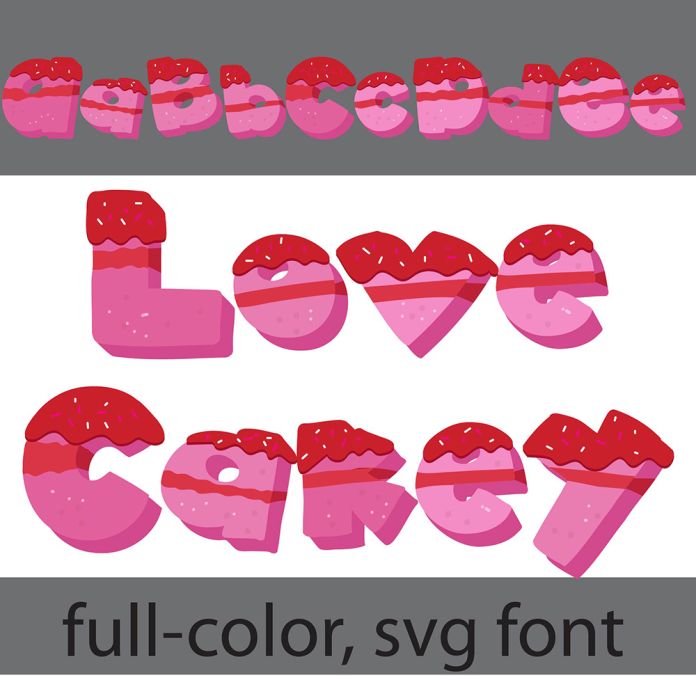
This full-color font features hot pink layered cake with red frosting. There is an alt case with an additional color of each letter. This font works best for titles, displays, posters and more. Please note color fonts will show as black in non compatible programs. This font type is compatible with Silhouette Studio.